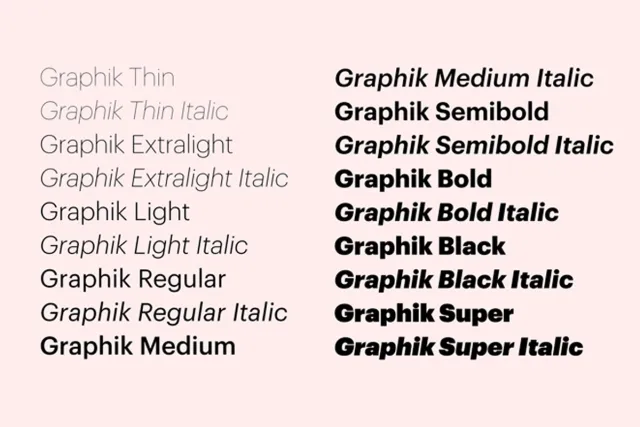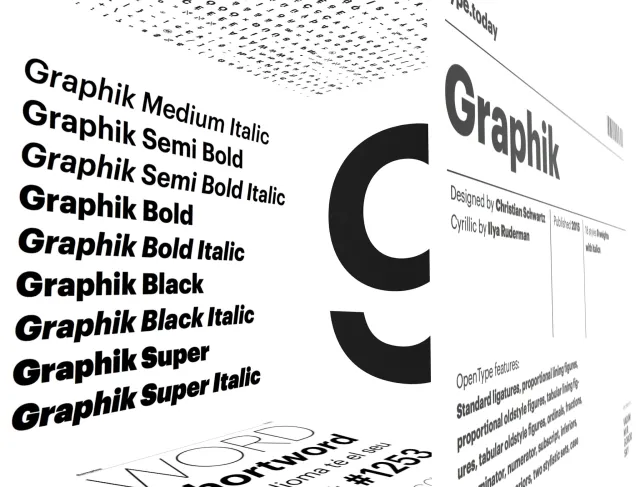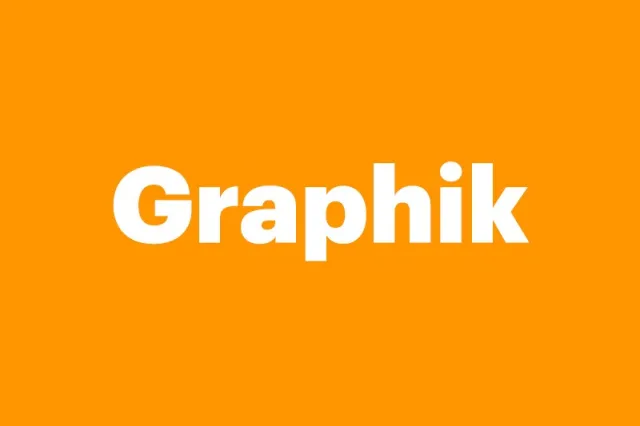
Graphik is a modern grotesk sans serif font family. It offers low‑contrast strokes for clear text at small sizes. The family includes nine weights across eight widths. Designer Christian Schwartz drew on mid‑century modernist posters for its look. Its clean shapes can drive headlines or support body text. Use Graphik in branding, editorial layouts, posters, video, web apps, and interfaces.
Designer: Christian Schwartz